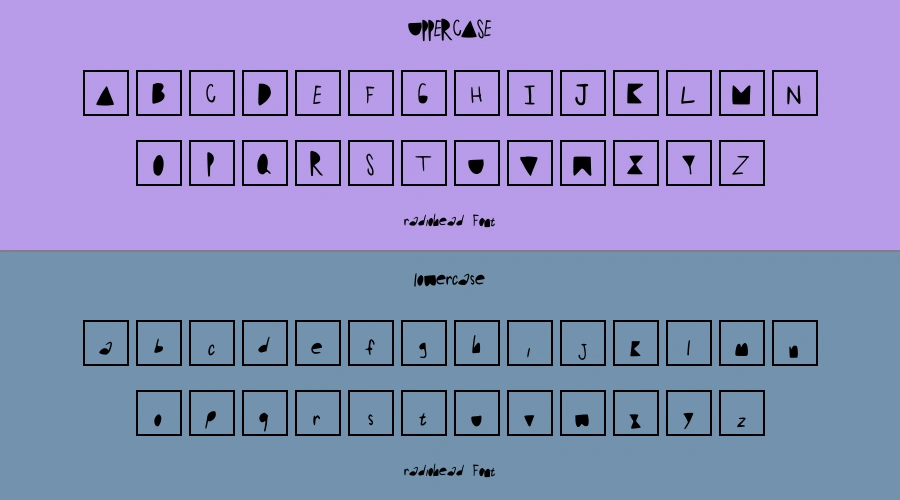
About radiohead Font
When typographic excellence matters most, radiohead Font delivers through its thoughtful blend of teardrop terminals and traditional values. Specially crafted for product naming, it offers the authenticity and technical mastery required for sophisticated design work. Every detail serves a purpose.
The character set showcases thoughtful details like playful elements alongside functional word-end alternates. This proves especially valuable in pull quotes, where reproduction fidelity directly influences results. Particular attention was paid to x-height and user perception during development.